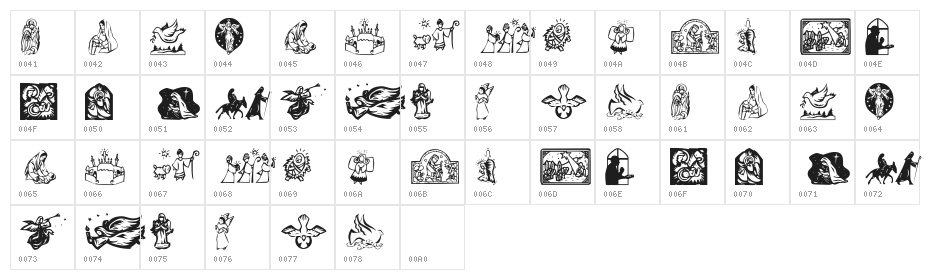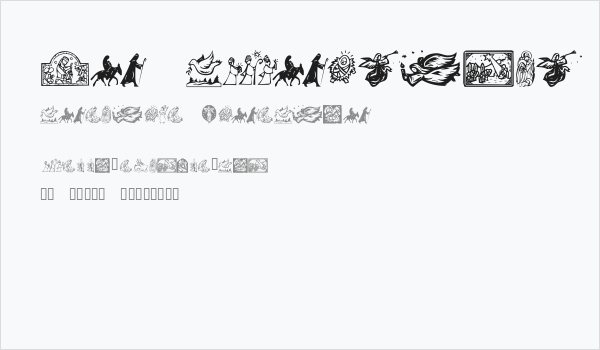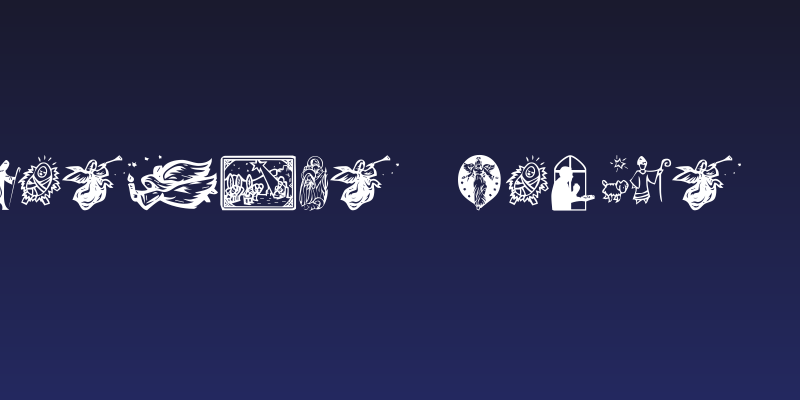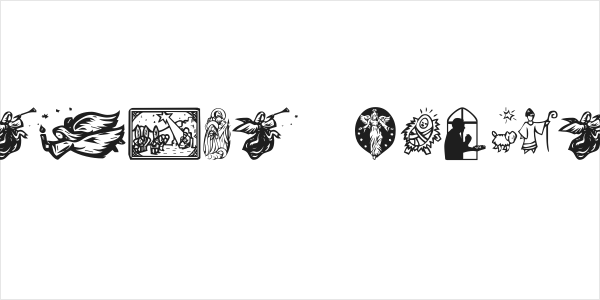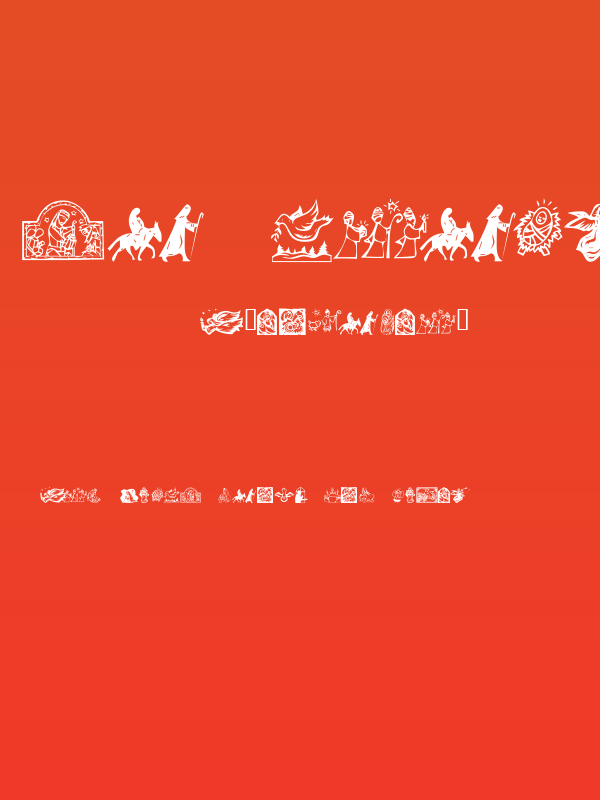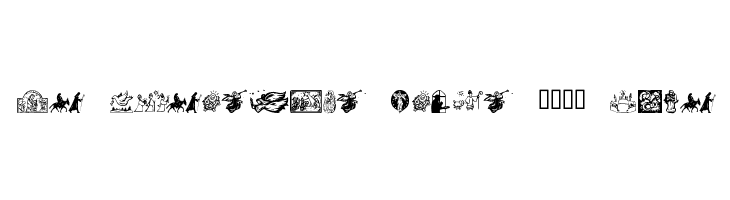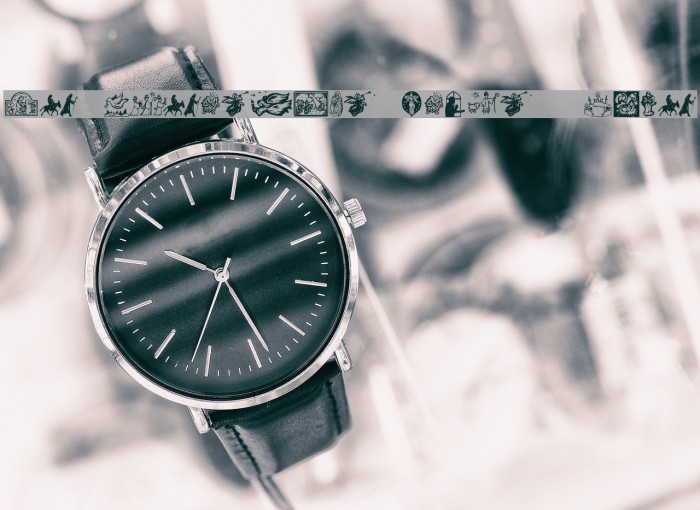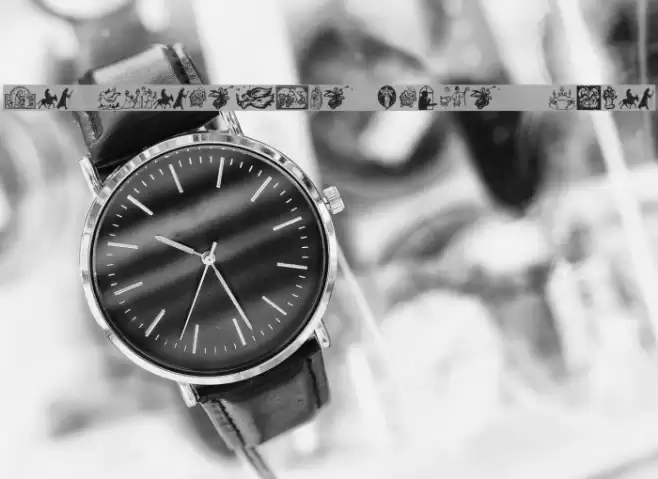
KR Christmas Dings 2004 Four Font
KR Christmas Dings 2004 Four Description
This is a decorative dingbat font featuring a variety of Christmas-themed illustrations. Each character is represented by a unique festive image, including nativity scenes, angels, and other holiday motifs. The style is whimsical and detailed, capturing the essence of traditional Christmas imagery. The illustrations are bold and clear, making them suitable for decorative purposes. The font does not include standard alphabetic or numeric characters but instead focuses on providing a rich collection of holiday graphics.
| Use Case | Decorative elements, Holiday designs |
| Proposed Projects | Ideal for holiday greeting cards, festive invitations, Christmas-themed crafts, and decorative projects. |